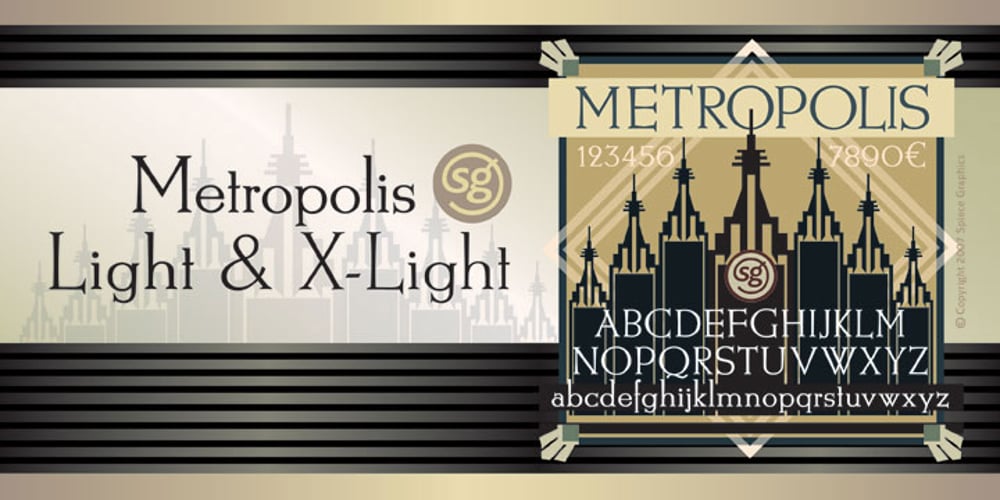
Metropolis SG Font Family was designed by Jim Spiece, W. Schwerdtner and published by Spiece Graphics. Metropolis SG contains 2 styles and family package options. The revival of this 1932 classic design by W. Schwerdtner for the Stempel Foundry in Germany brings back the fashion and culture of those bygone days. Wedge-shaped vertical strokes are thicker at the top than at the bottom while serifs are somewhat elongated, thin, and pointy. Here is an excellent choice for large display settings where capturing the spirit of the 1920s and 30s is important. Metropolis SG is also available in the OpenType Std format. Some new characters have been added to this OpenType version. Advanced features currently work in Adobe Creative Suite InDesign, Creative Suite Illustrator, and Quark XPress 7. Check for OpenType advanced feature support in other applications as it gradually becomes available with upgrades.